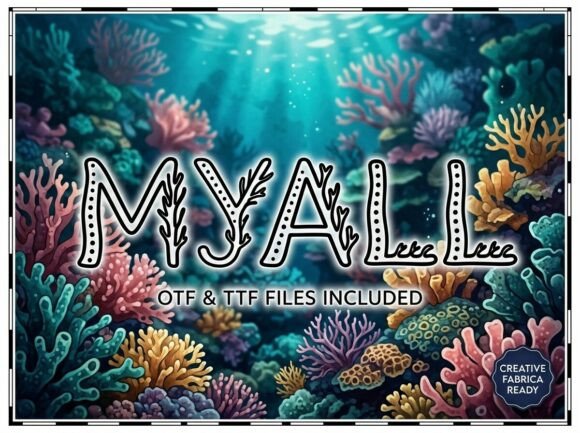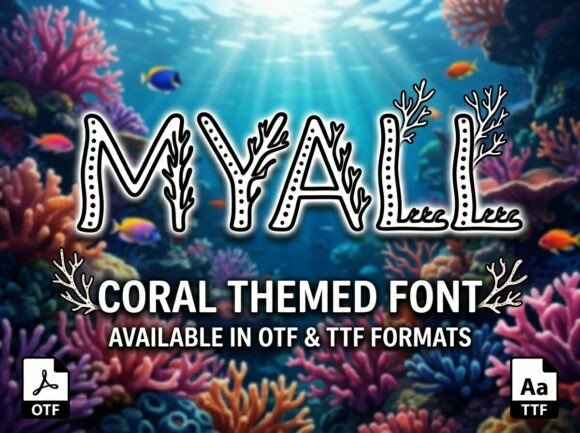
Introduction to Myall Font
Dive into a world of oceanic wonder with Myall, a charming display typeface that captures a “nautical-and-serene” soul.
This font features whimsical, hand-drawn letterforms intricately adorned with rhythmic dotted patterns and organic coral branch motifs With its unique coastal details and relaxed seafaring energy, Myall is the premier choice for independent beach house branding, marine conservation logos, artisanal seaside boutique signage, and high-impact “ocean-breeze” social media headers.
Key Features of Myall Font
Why Choose Myall Font?